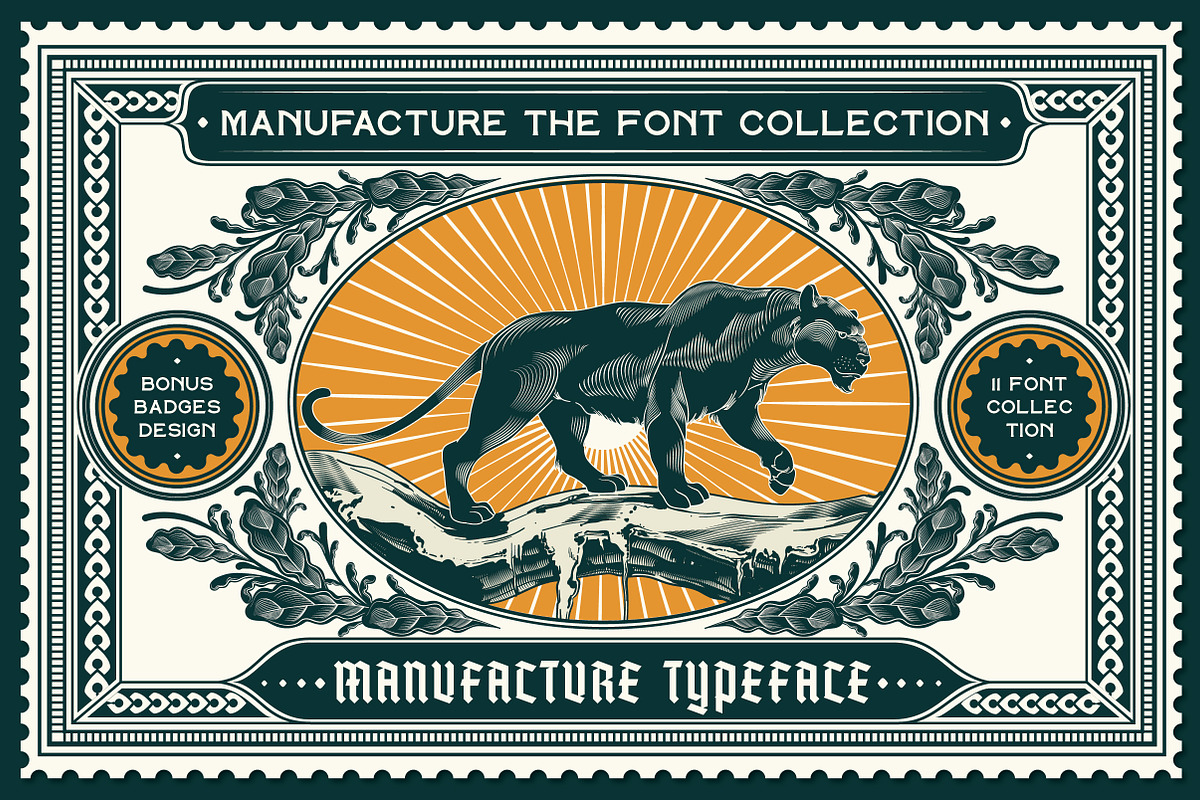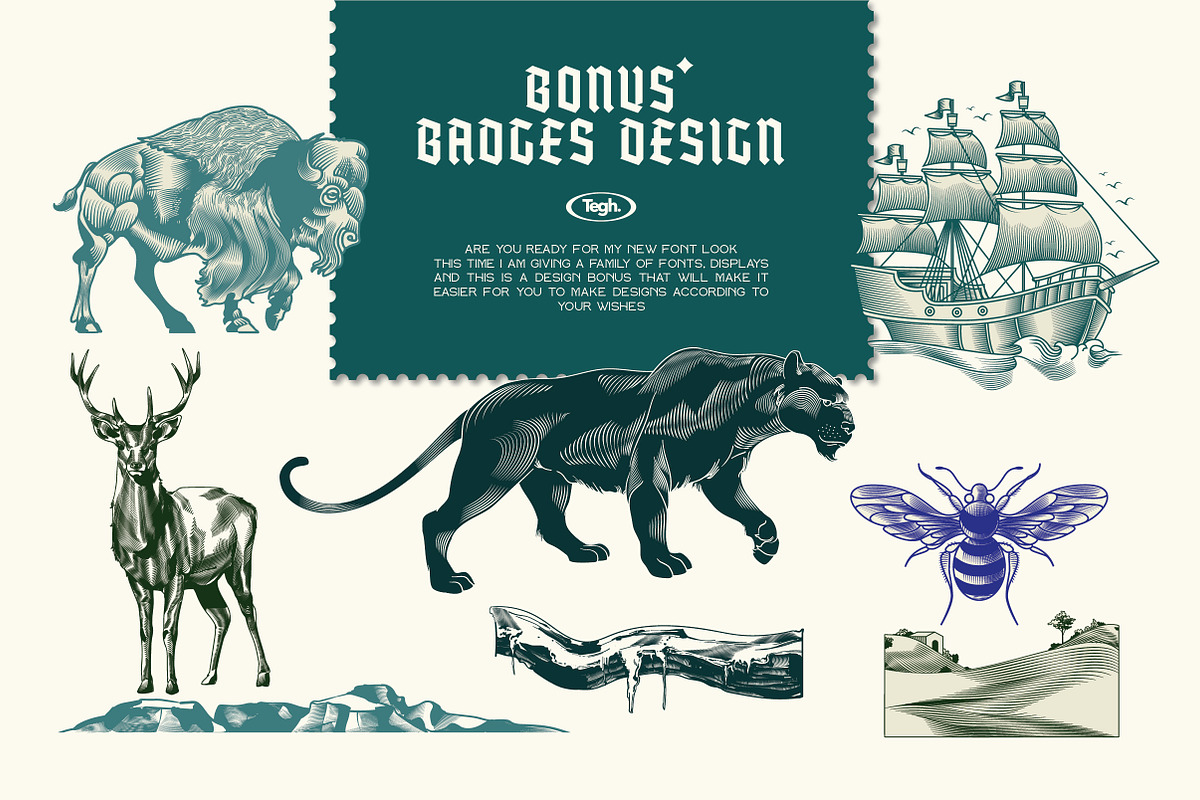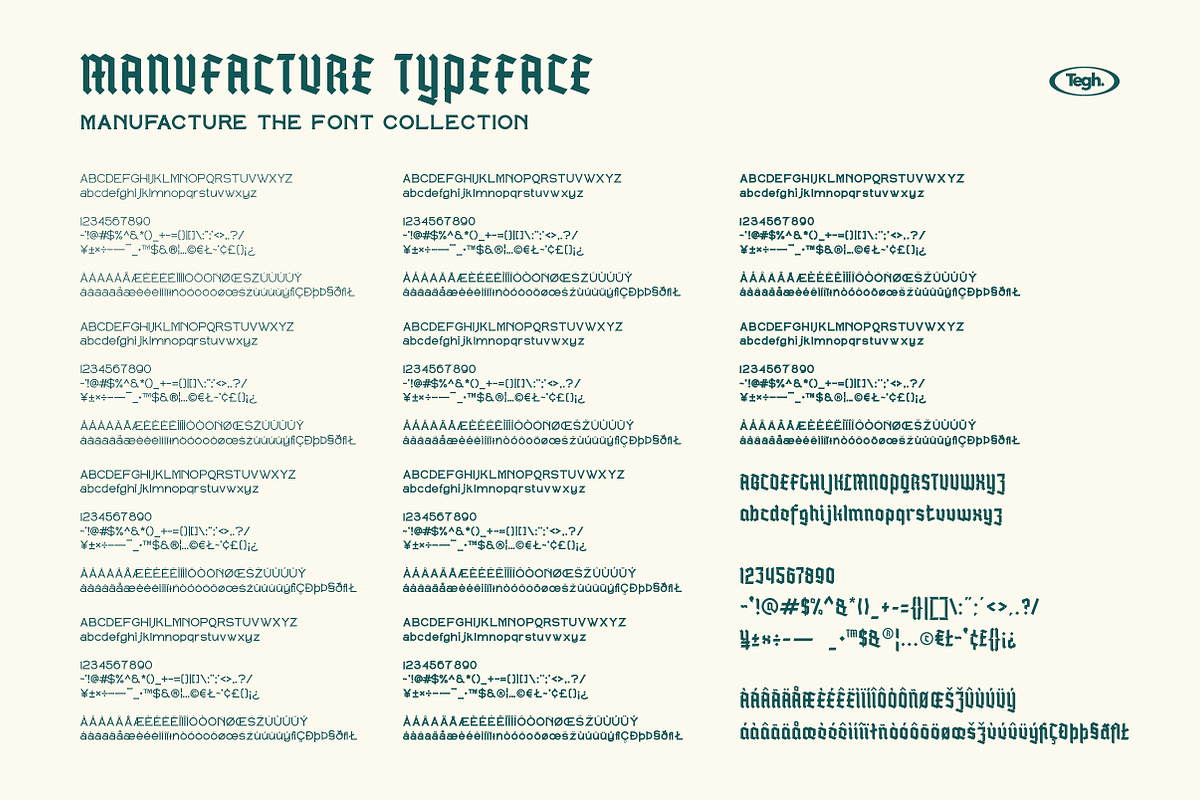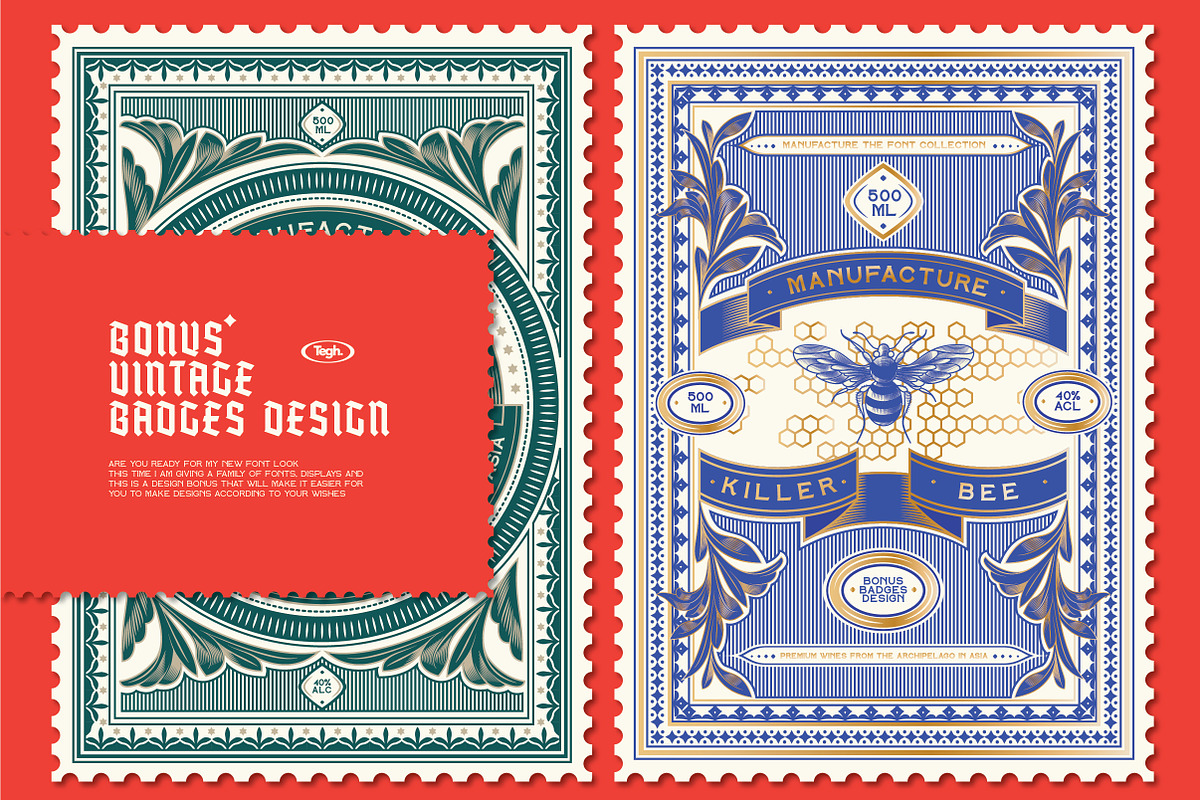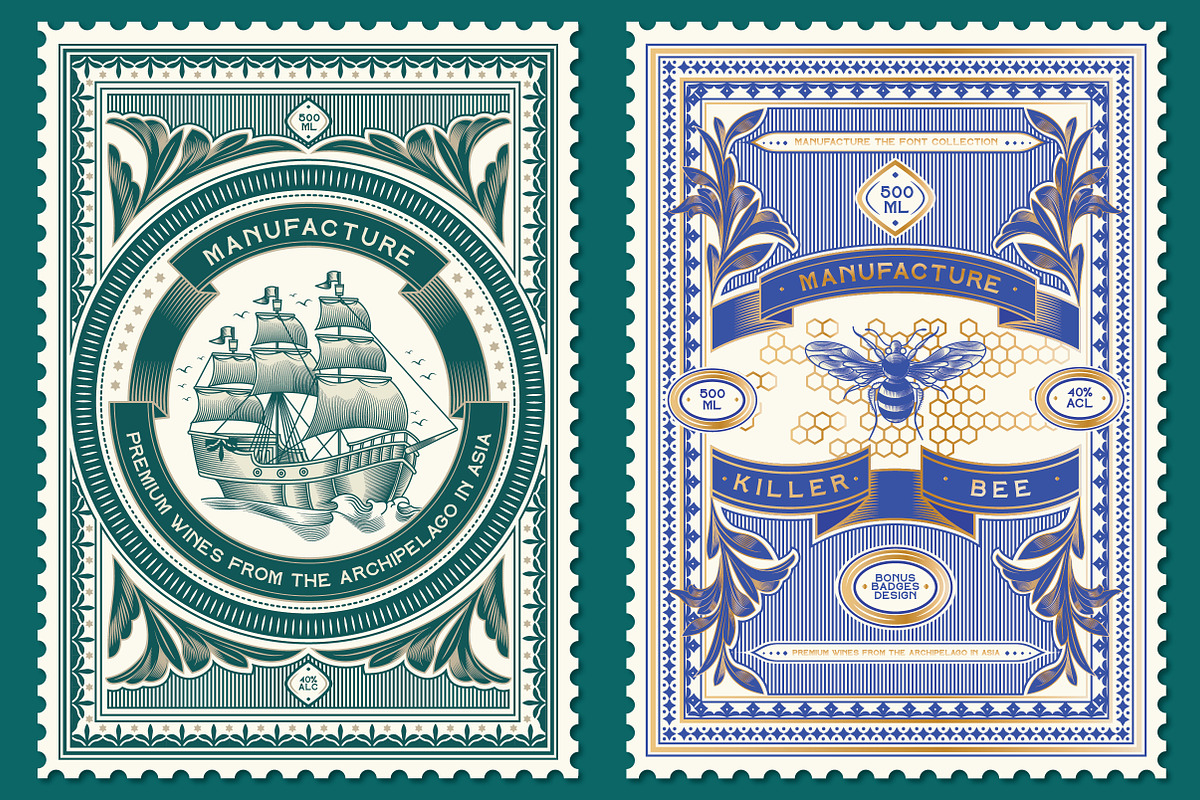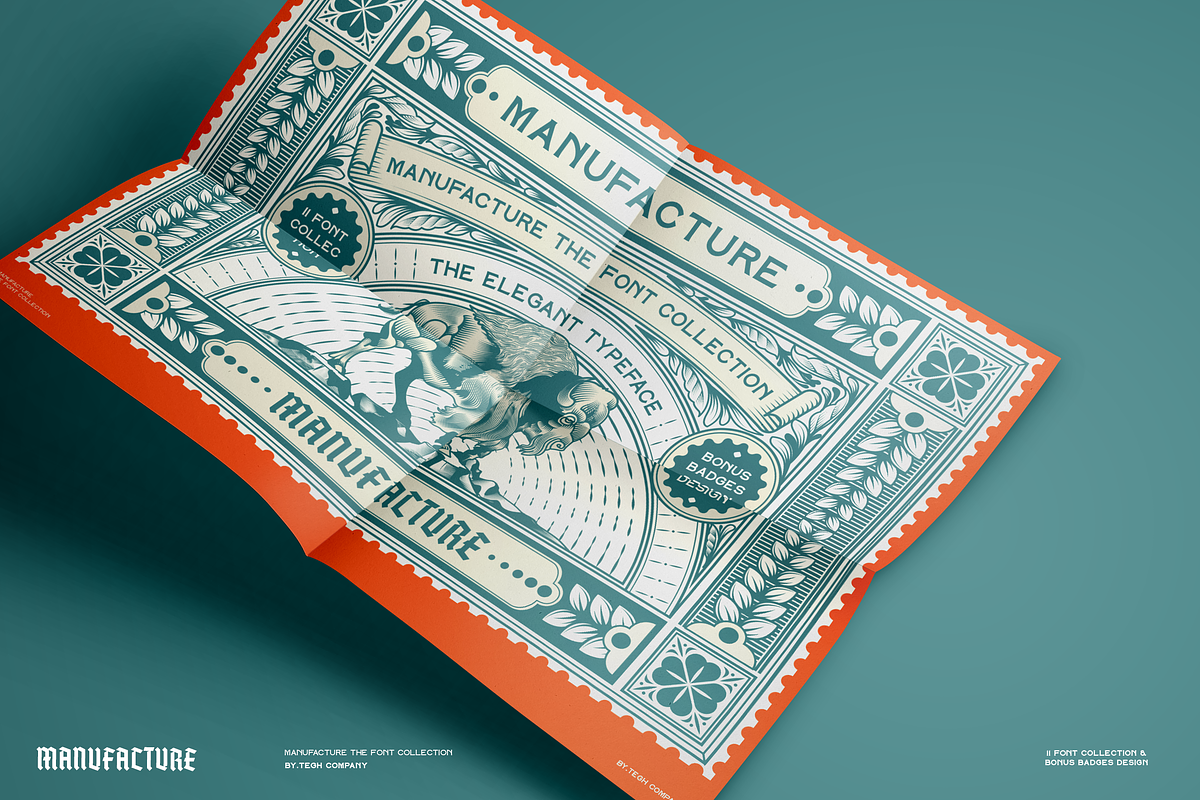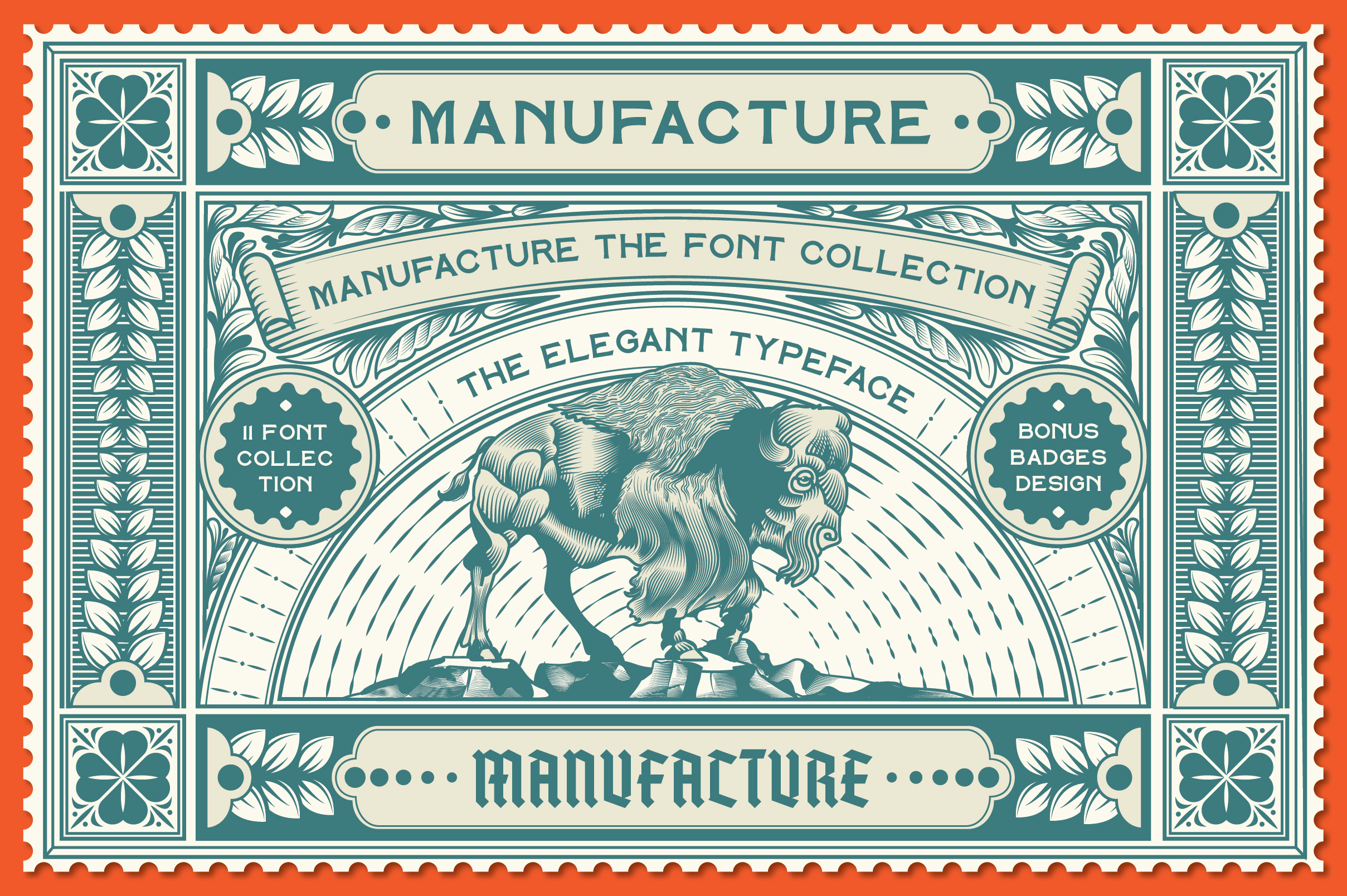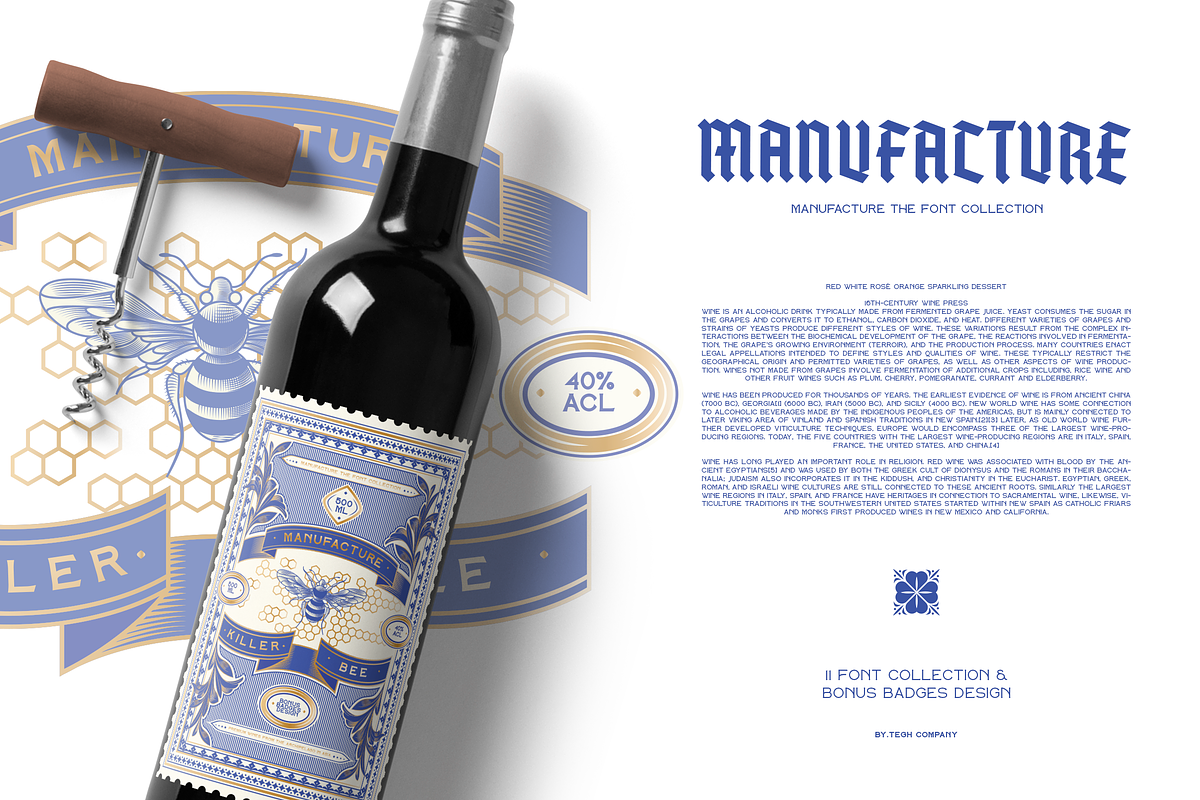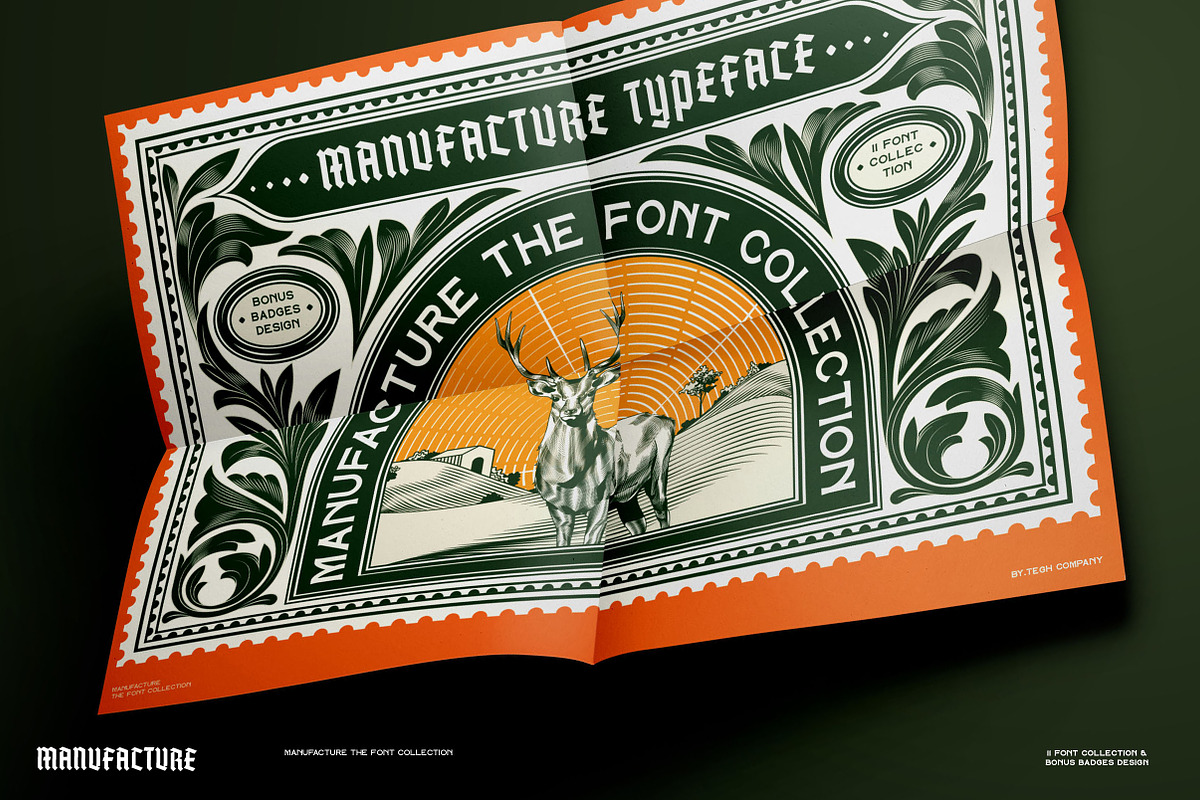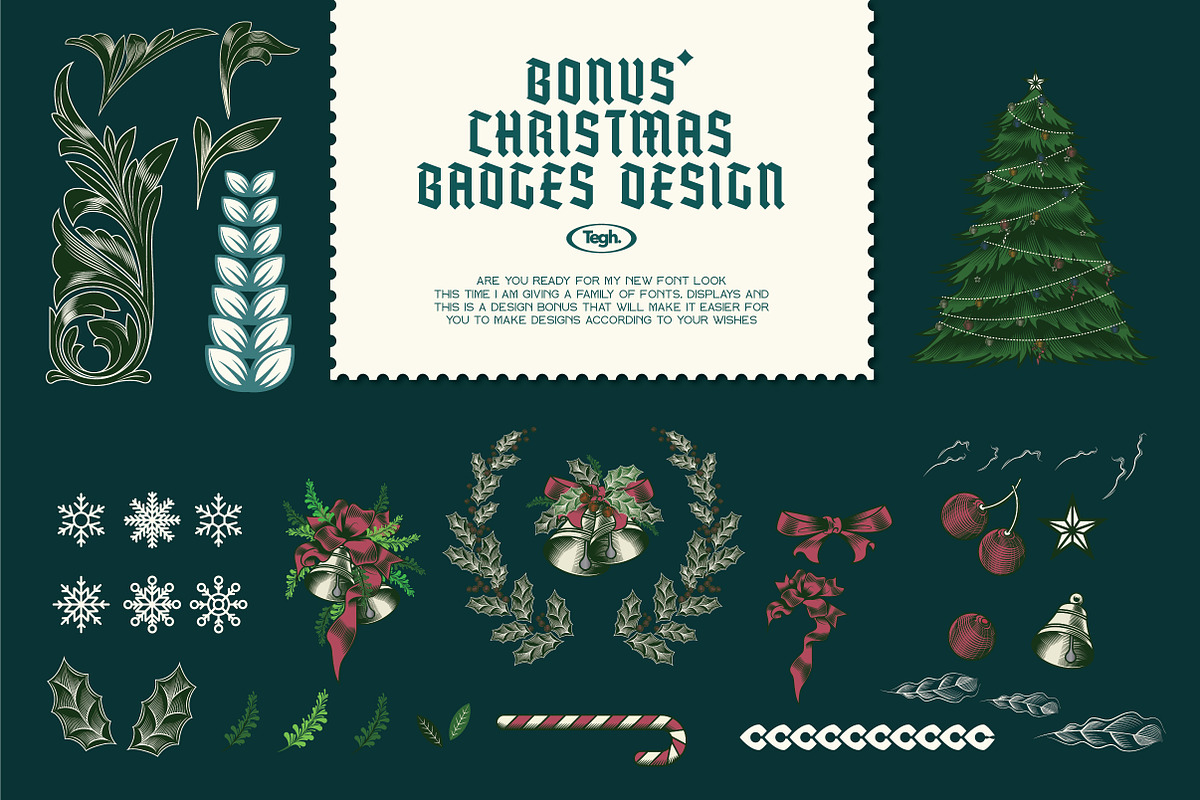
manufacture font collection
hello everyone, here is my newest font that I made to make it easier for all of you to do the design according to what you want, this time I gave a font with an elegant style to suit your needs, and I also created a font family so that you can easily use it as a title and text, and always I don't forget to give a badges design bonus so that you can easily do the design, and also I give a Christmas gift in the form of an icon that you can easily assemble according to your wishes